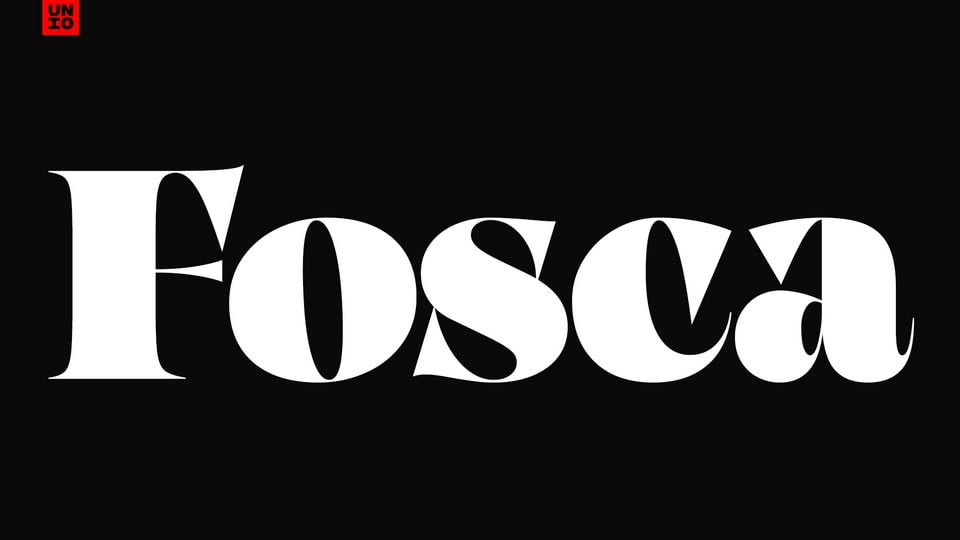
Download Fosca font, a bold baroque serif display typeface that fuses classic elegance with contemporary design to offer continuous and comfortable reading.
Designer: Unio Creative Solutions